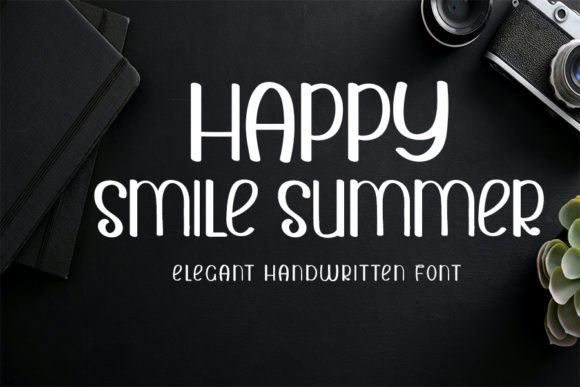
In a world saturated with monotonous and banal fonts, Happy Smile Summer emerges as a radiant beacon of joy, injecting life and personality into your creative endeavors. Its playful and inviting curves dance across the page, evoking the carefree spirit of summer and the warmth of a genuine smile.
With Happy Smile Summer, you'll embark on a typographic adventure where imagination reigns supreme. Whether you're a seasoned designer or just starting to explore the world of fonts, this display font will ignite your creativity and transform your designs into captivating works of art.
Picture this: Your Instagram posts adorned with Happy Smile Summer's cheerful letterforms, captivating your audience with their playful charm. Your social media presence will radiate warmth and positivity, attracting a community of like-minded individuals who appreciate the beauty of unique and expressive typography.
Or perhaps you envision your DIY projects adorned with Happy Smile Summer's whimsical calligraphy. Imagine greeting cards that burst with heartfelt sentiments, handwritten with this font's endearing strokes. Your creations will become cherished keepsakes, tangible expressions of love and friendship.
The versatility of Happy Smile Summer knows no bounds. It's the perfect font for T-shirt designs that exude a laid-back summer vibe. T-shirts emblazoned with Happy Smile Summer's cheerful characters will spread joy wherever they go, making you and your loved ones beacons of positivity in a busy world.
So, embrace the magic of Happy Smile Summer and let your creativity soar. Transform your designs into captivating masterpieces that reflect your unique style and personality. Experience the joy of creating with a font that's as delightful as a summer breeze, as heartwarming as a genuine smile.